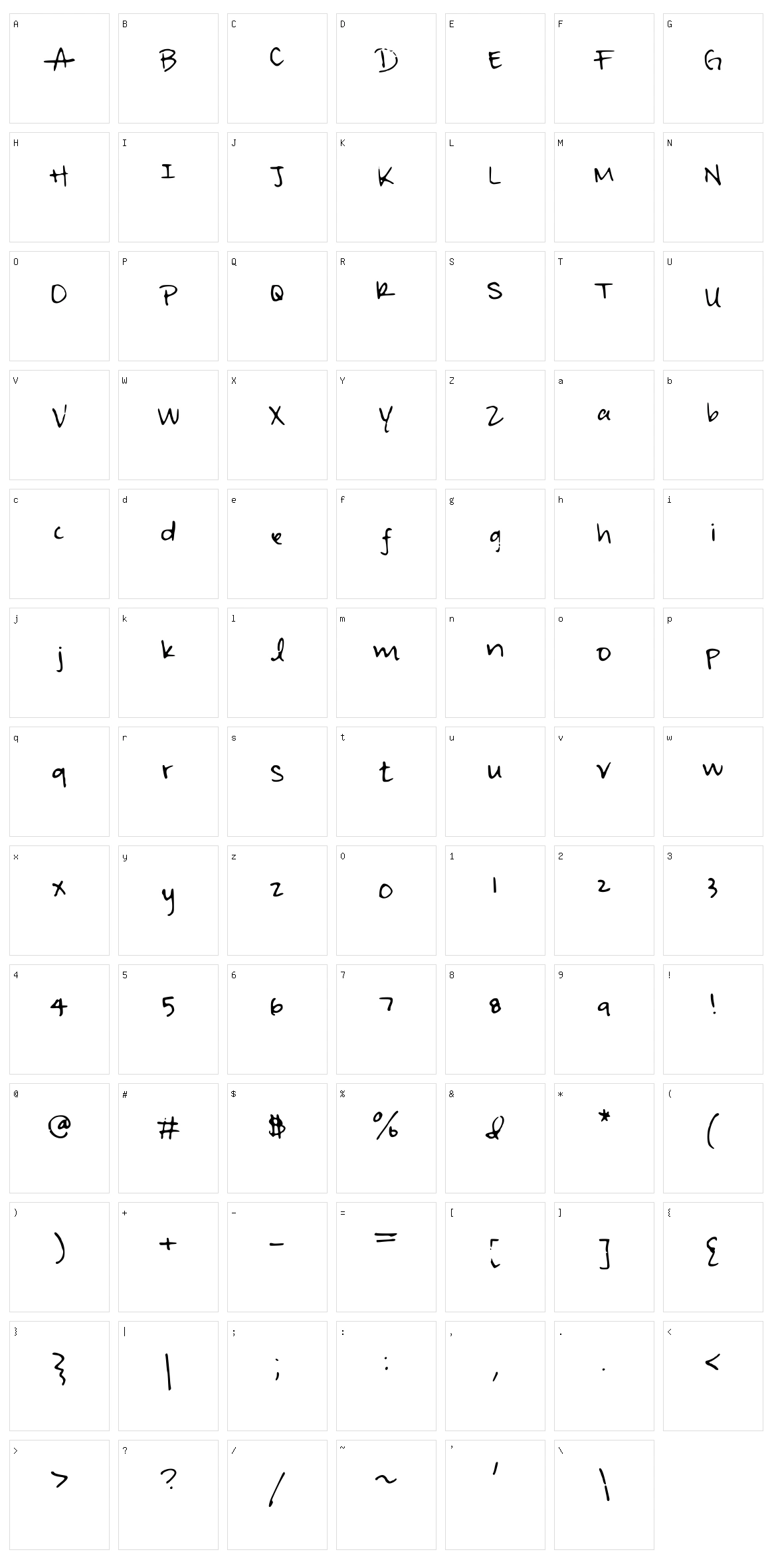
The free font Irisisweird is carefully designed by Iris Lang, showcasing a thoughtful balance of creativity and usability and falls under the Script font style. When you download the ZIP file, it contains only 12.33 KB of font files, making it lightweight and quick to download. Please review the license details below to understand permitted usage and distribution rights. If license information is not available, we recommend using this font for personal projects only or contacting the author directly for commercial usage permissions.